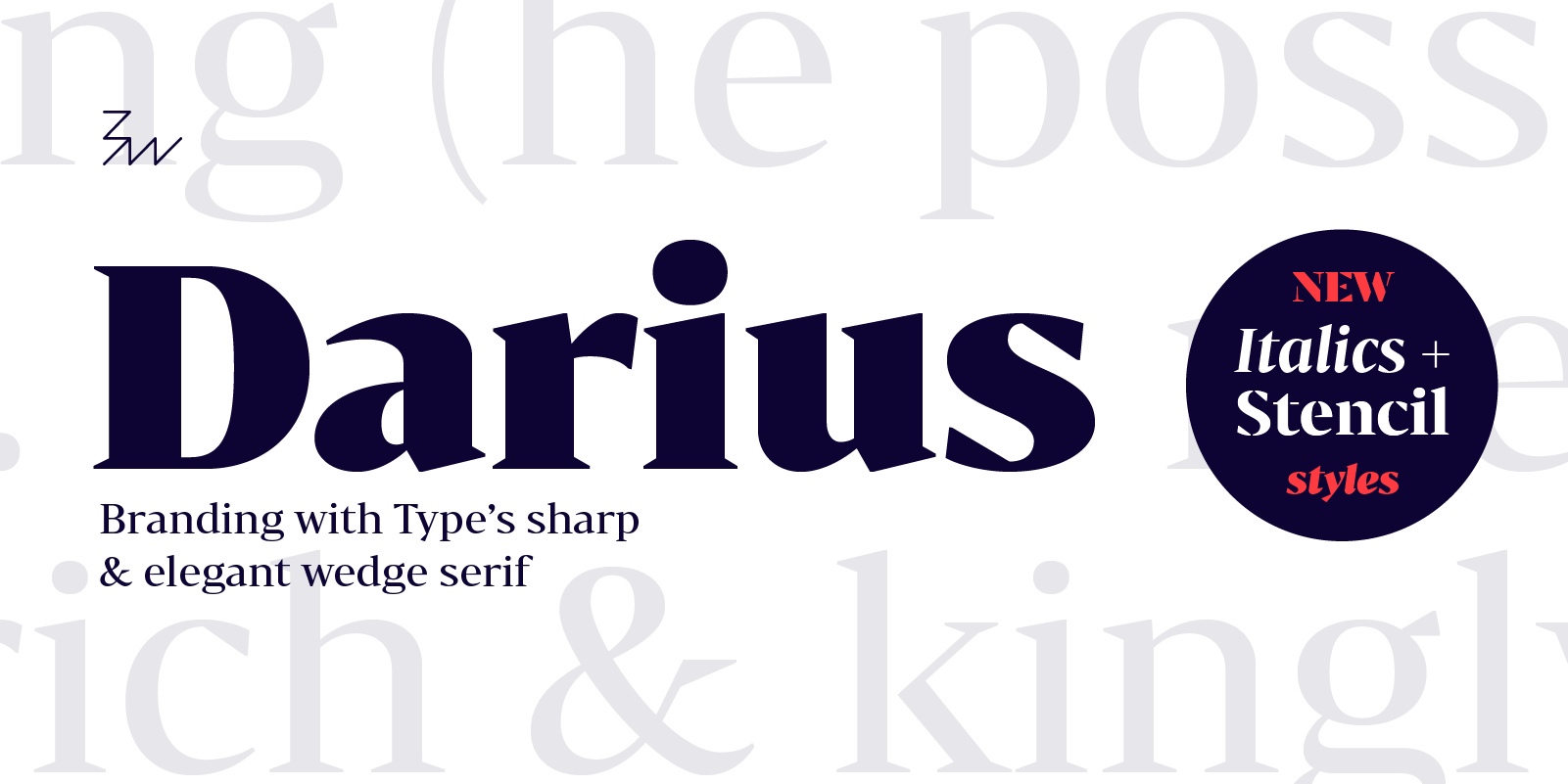
Bw Darius Font
Bw Darius Font excels in newspaper headlines, editorial design, book publishing, academic publications, professional reports, corporate communications, magazine layouts, legal documents, formal presentations, and traditional branding projects. This sophisticated serif typeface brings timeless elegance to any text-heavy application.
Bw Darius Font is exciting because it masterfully combines classical typographic traditions with contemporary refinements, offering exceptional readability and scholarly authority. Its carefully balanced proportions and refined serif details create a sense of trustworthiness and intellectual sophistication that resonates with discerning audiences.
The Bw Darius Font family encompasses multiple weights including Light, Regular, Medium, Bold, Black, along with their italic counterparts, plus small caps variations and extended character sets, providing comprehensive typographic solutions for complex editorial and publishing projects.
Bw Darius Font Free Download represents a significant achievement in contemporary serif design, bridging the gap between historical typography and modern functionality. This exceptional typeface has earned recognition among leading publishers and design studios for its ability to enhance readability while maintaining distinctive character and visual appeal across various media platforms.
Typography experts praise Bw Darius Font for its outstanding performance in extended reading applications and its ability to establish clear information hierarchies in complex layouts. The font's meticulously crafted letterforms and optimized spacing ensure comfortable reading experiences at all sizes, from small body text to large display headlines.
The technical excellence of Bw Darius Font includes extensive language support, advanced OpenType features, and carefully adjusted metrics that ensure professional results in demanding publishing environments. Editorial teams working on scholarly publications, literary works, and high-quality magazines particularly value its combination of classical elegance and modern functionality.
For publishers, editors, and designers who demand the highest standards in text typography, Bw Darius Font delivers uncompromising quality that elevates written content. Its scholarly appearance and exceptional legibility make it an indispensable choice for projects where information clarity and intellectual credibility are paramount to successful communication.